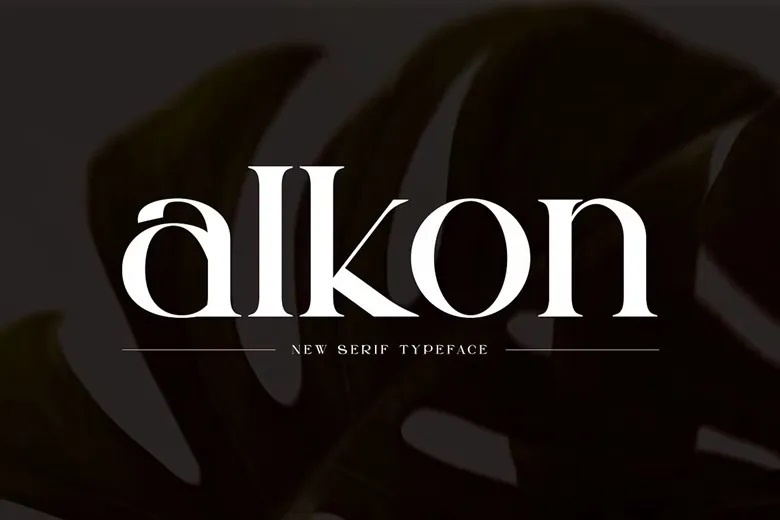
Alkon Font
Alkon is a luxurious serif typeface that combines contemporary design with a feel of nostalgia. Its polished character makes it a great fit for magazines, logos, and social media visuals where personality and style matter. The font styles are carefully paired and ready to use, assisting you to create polished and cohesive designs with ease.
Crafted for creatives looking for style, sophistication, glamour, and a sense of modern trend, this font adds a fashionable and confident voice to your crafts. Built with OpenType features, it comes with numerals, ligatures, and full punctuation support together with multilingual compatibility.
Alkon Serif Font